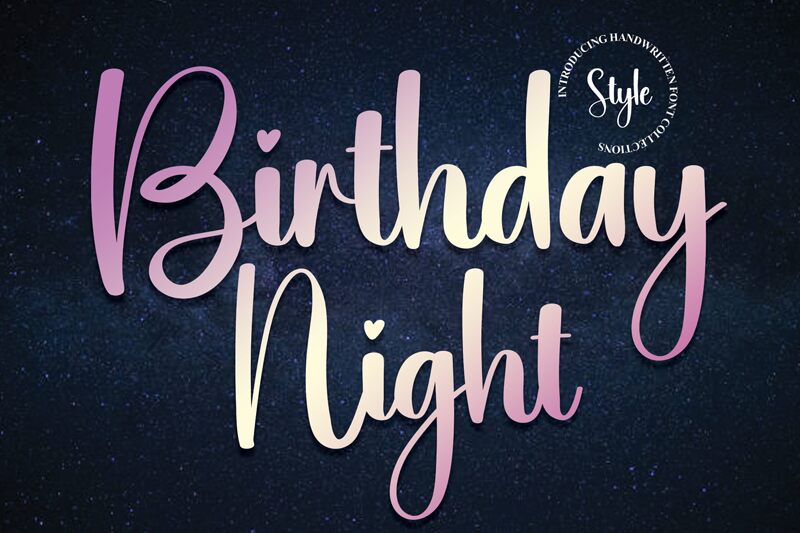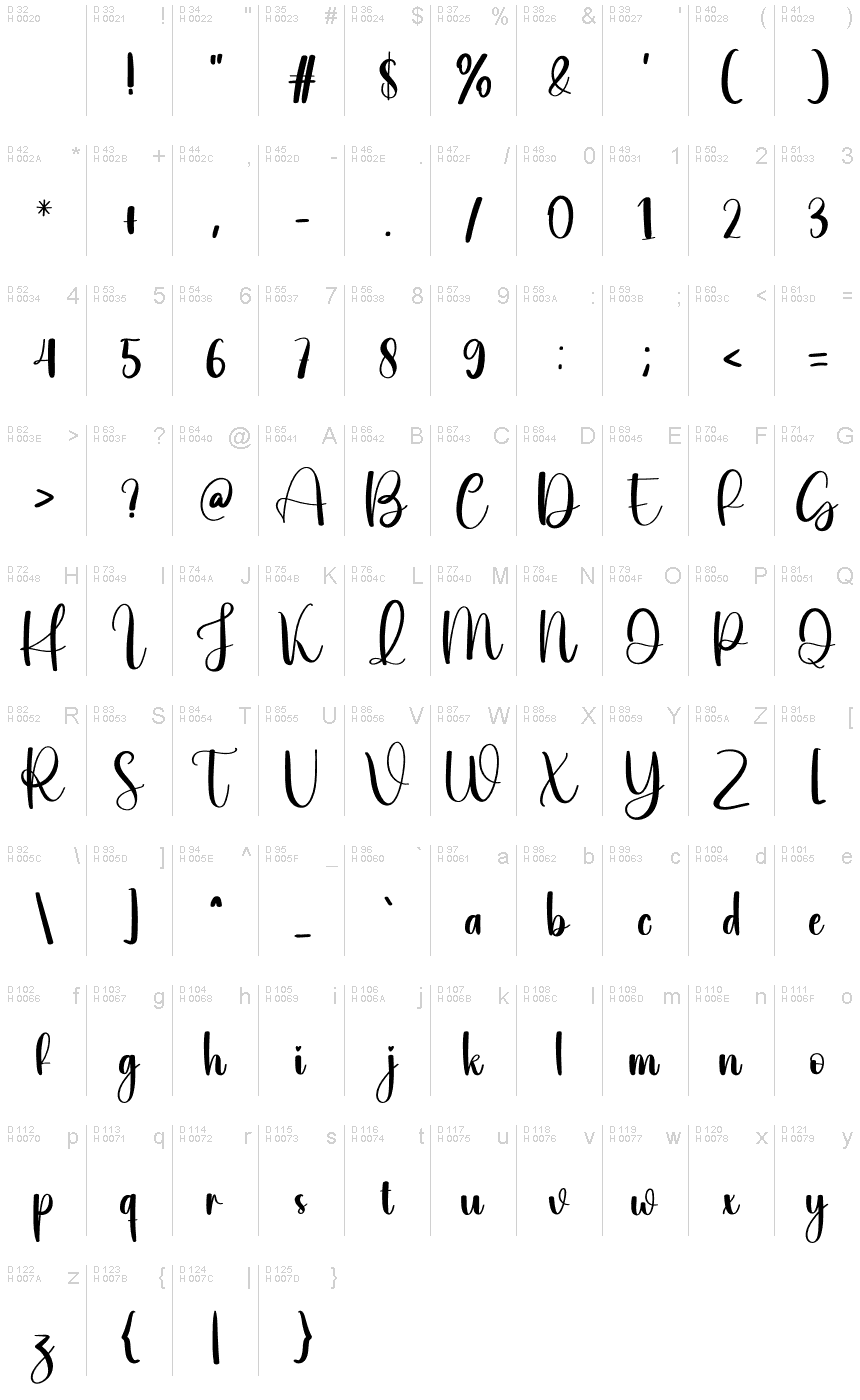
Birthday Night
Birthday Night by Scratchones brings the warmth and joyous spirit of handwritten messages into the digital realm. Its semi-light weight pairs with a semi-condensed width to create a font that is as cozy as it is efficient in space. The fluidity of its cursive style exudes a personal touch, reminiscent of an intimate note or an elegant signature.
The distinctive flow of Birthday Night captures the essence of special occasions, making it an ideal choice for invitations, greeting cards, and personal branding projects. It possesses an aesthetic appeal that combines playfulness with sophistication—a versatile blend that can enhance the visual narrative of any creative endeavor.
Embellish your designs with the charm of Birthday Night and let your projects resonate with the bespoke elegance this font so effortlessly delivers.